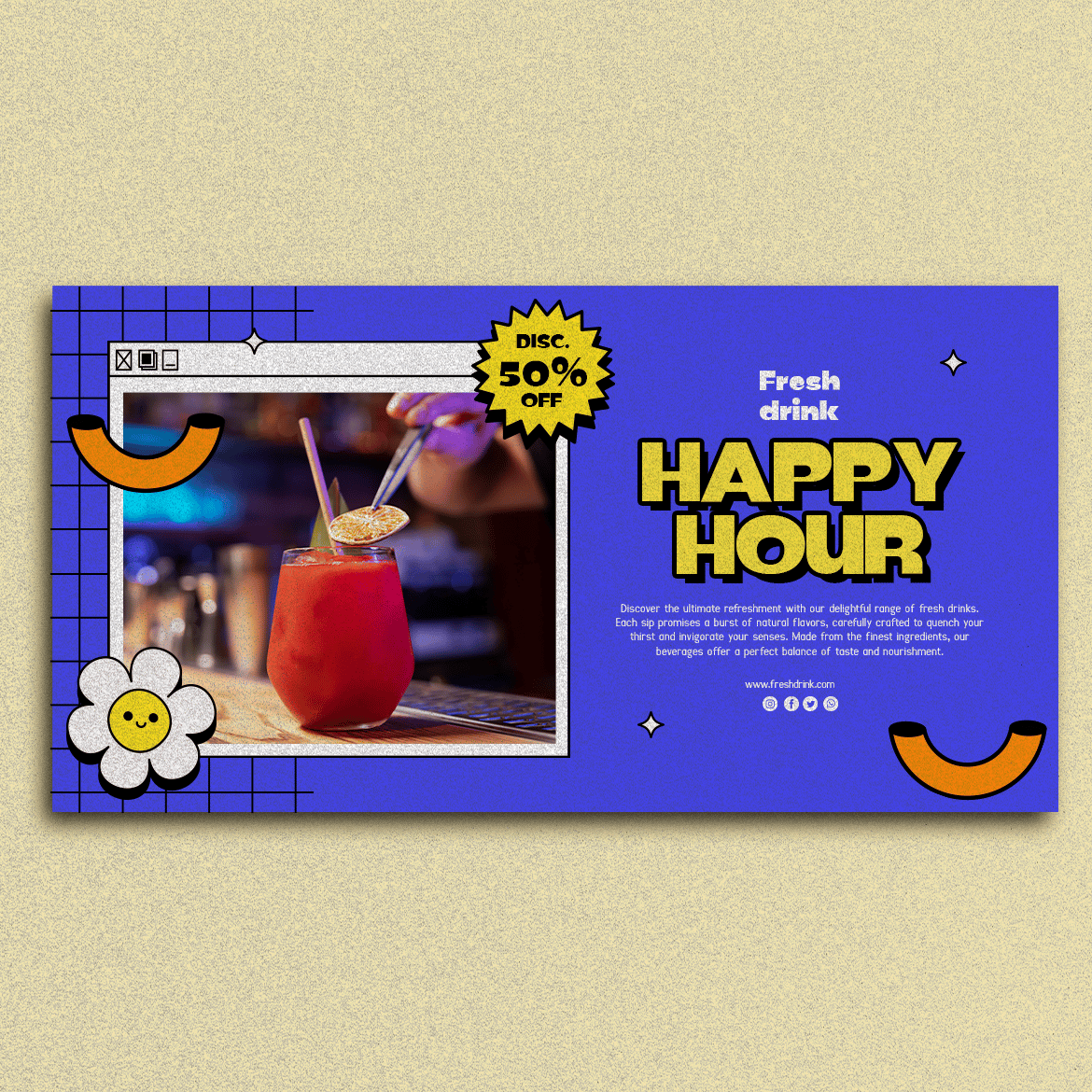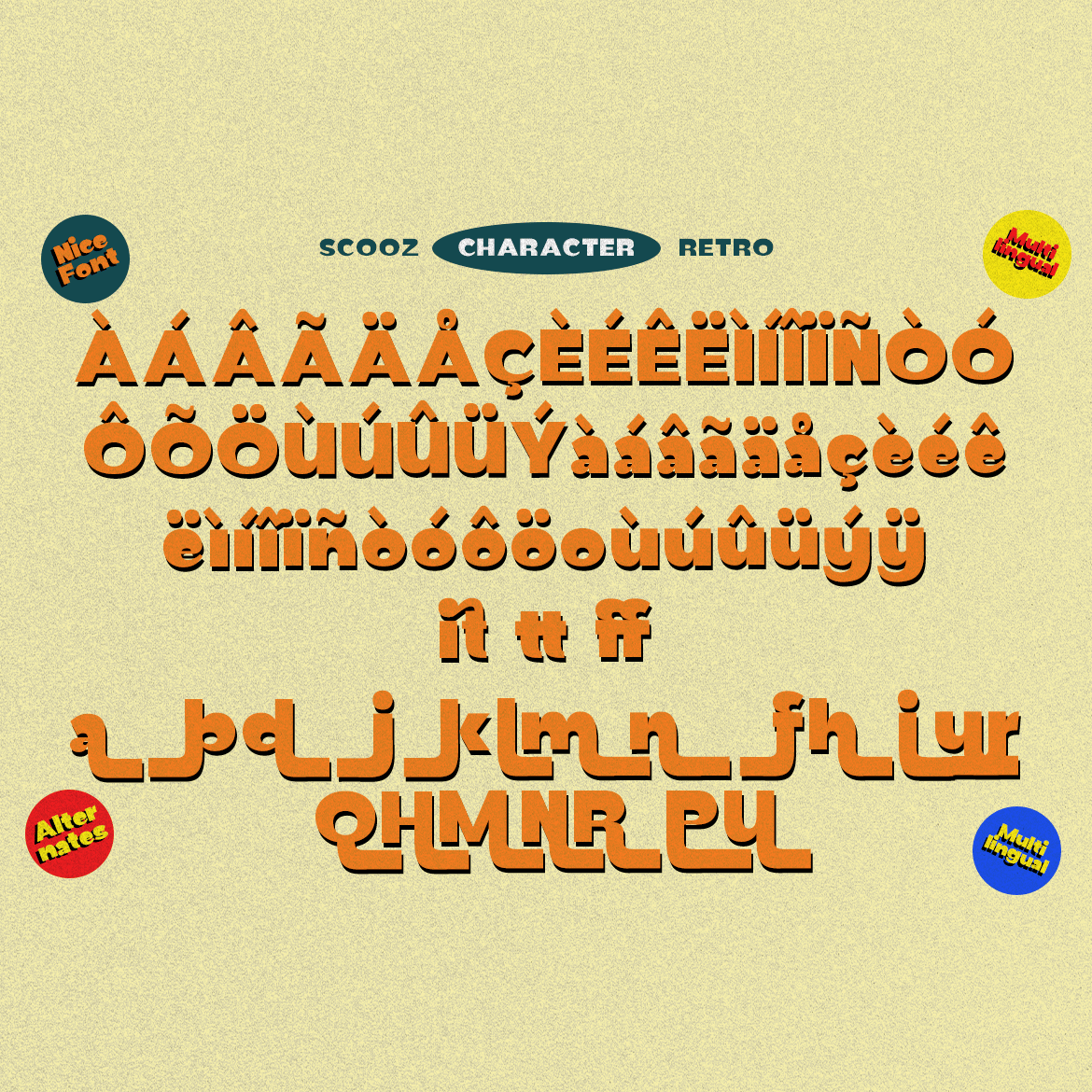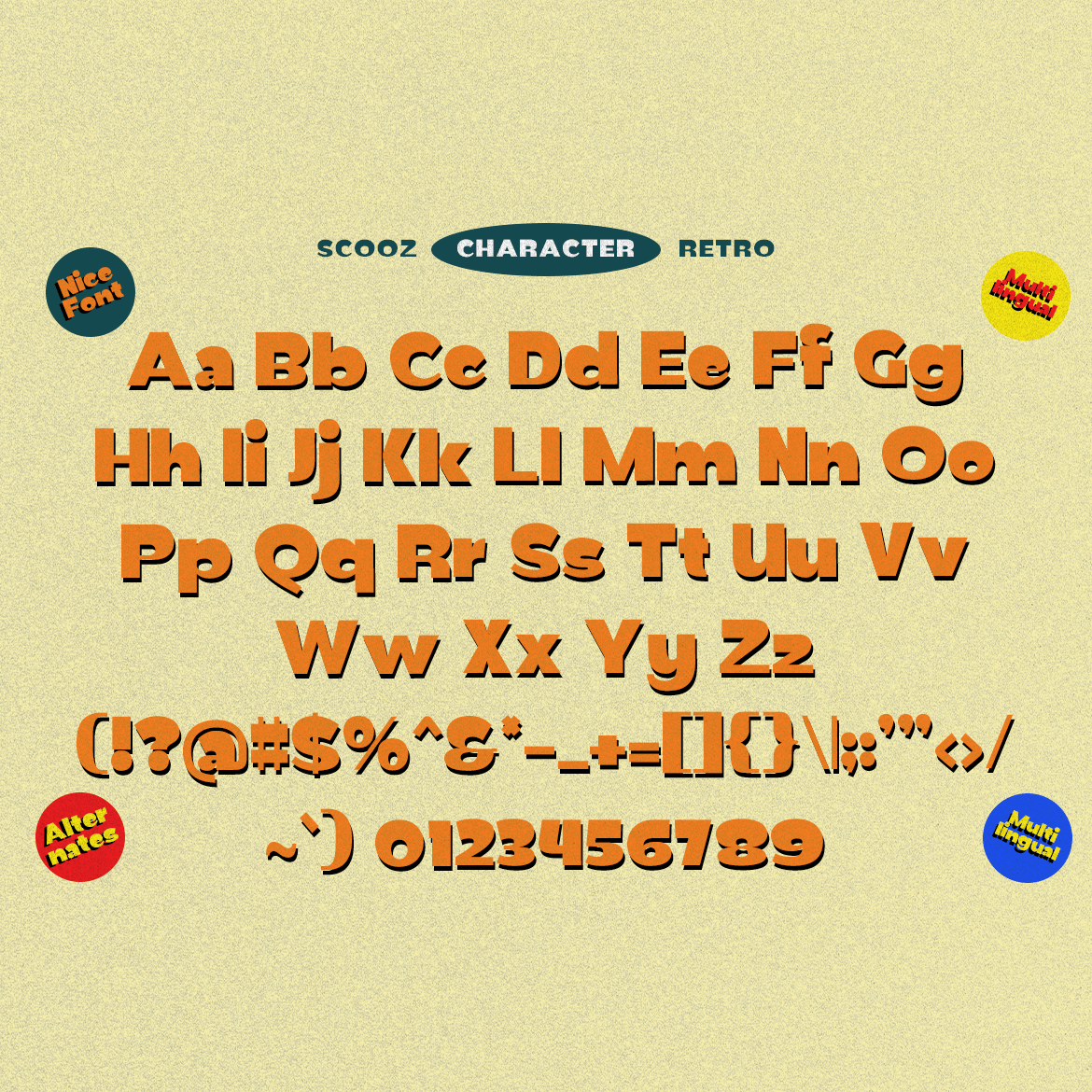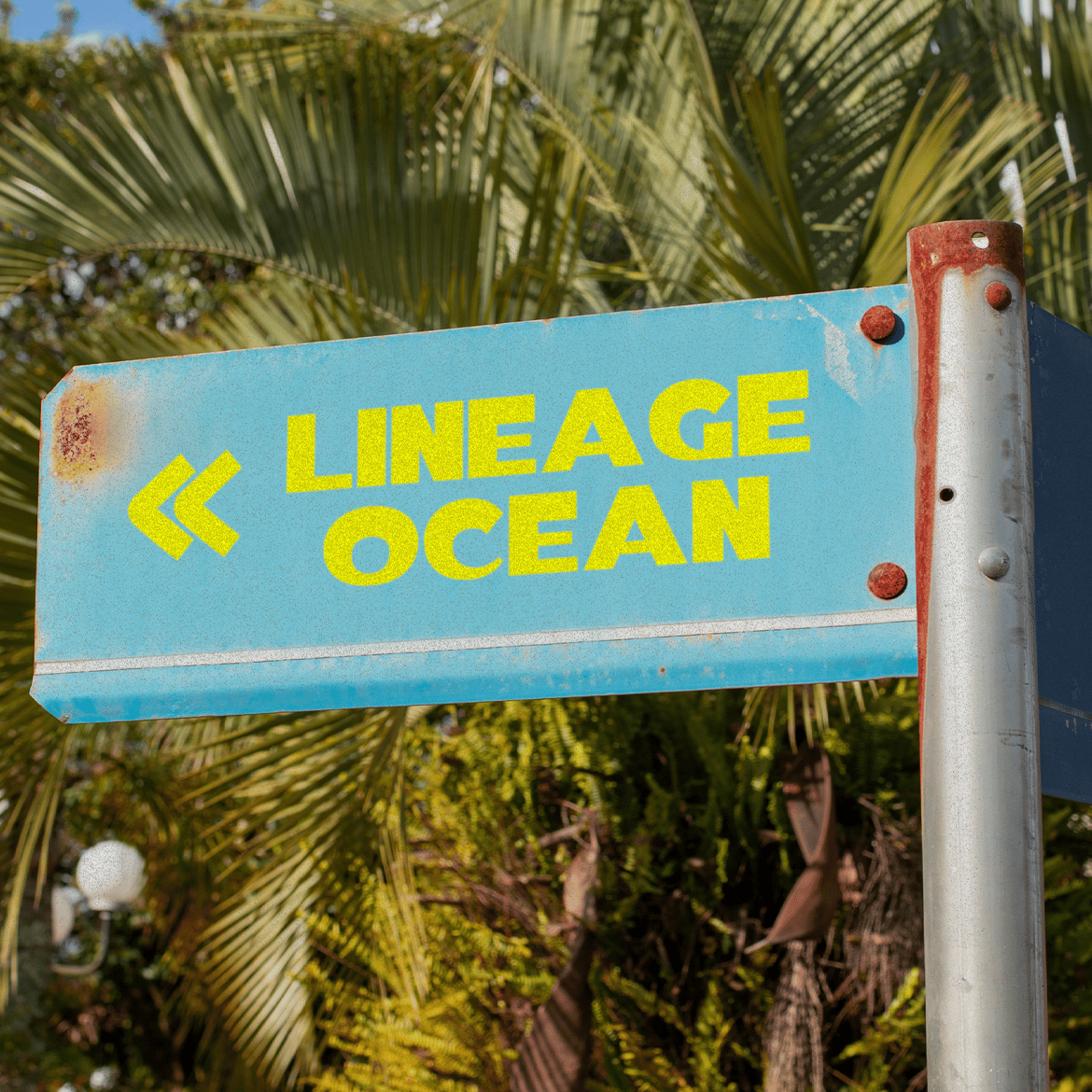
**Scooz – A Fun Retro Font**
Scooz is a lively and vibrant retro font designed to bring a nostalgic yet fresh feel to your design projects. With its playful letterforms and vintage-inspired style, Scooz is perfect for posters, retro-themed branding, event flyers, and fun merchandise. This font captures the essence of the past while adding a modern twist, ensuring your designs stand out with a unique and energetic vibe.
Crafted with attention to detail, Scooz features bold and quirky characters that provide excellent readability and visual appeal. Its dynamic design makes it ideal for headlines and display text, giving your work a distinctive and memorable presence. The font’s versatility allows it to be used in various design contexts, from digital graphics to printed materials, making it a valuable asset for any designer.
Embrace the fun and excitement of retro typography with Scooz, a font that combines the charm of the past with the energy of the present. Its unique style and adaptability make it an essential addition to any designer’s toolkit. Elevate your projects with Scooz and let the retro vibes shine through.